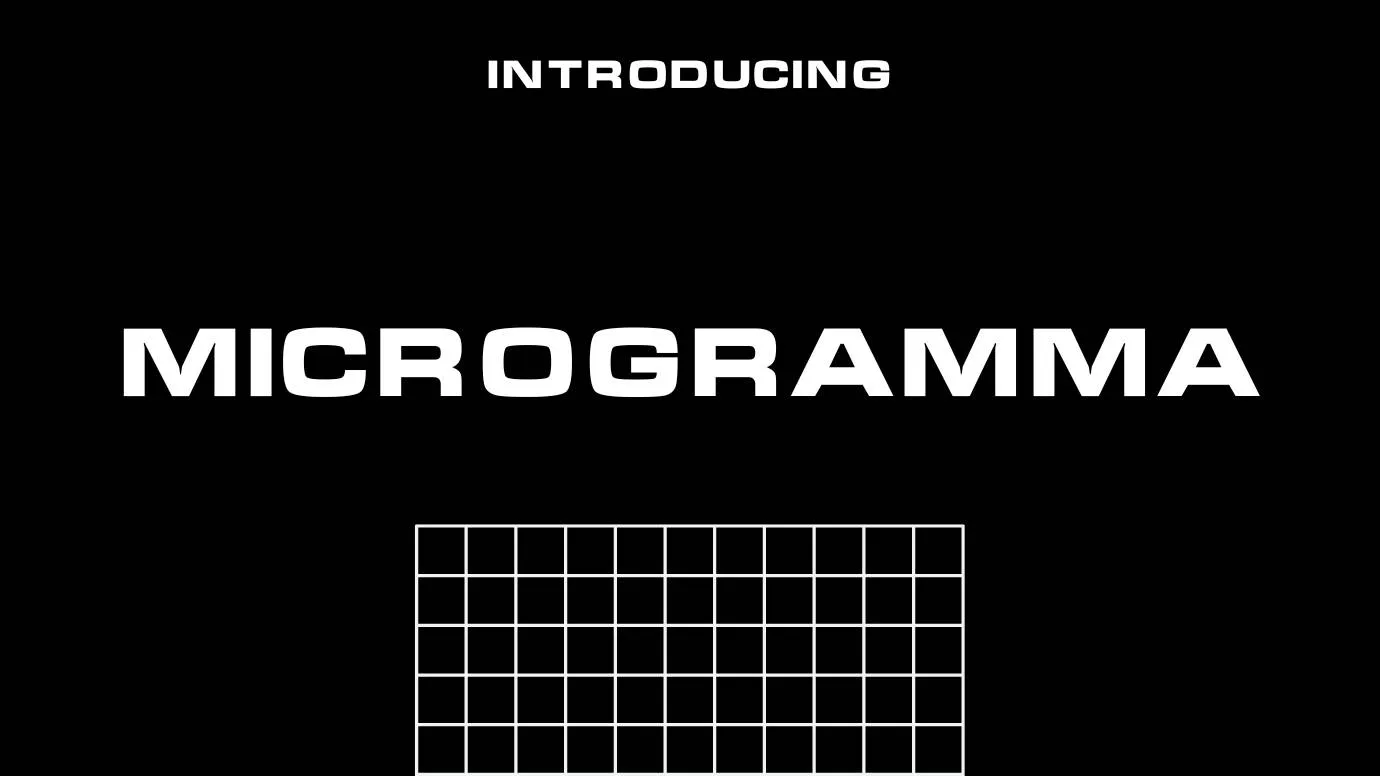
Microgramma Font Family is one of the highly used sans-serif typefaces that was known as the combined creation of Aldo Novarese and Alessandro Butti and after releasing this typeface different weights of the typeface have been released.
| Name | Microgramma Font |
| Type | Sans-Serif |
| Designer | Aldo Novarese, Alessandro Butti |